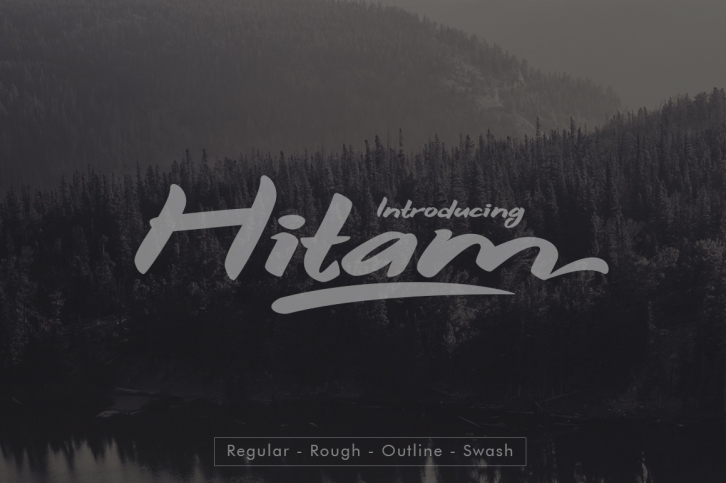
Hitam Bold 3 is a beautiful font that was designed by khurasan. It's a great choice for designers and creatives who need such a font. It was released on October 20, 2017 and the file size is 16.10 MB. Hitam Bold 3 may give a more youthful, expressive and casual look to your project. It is a very beautiful, refined, elegant, and high-quality font.